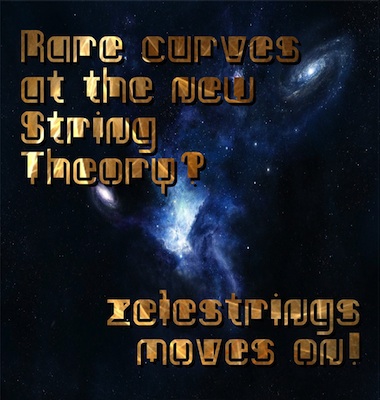
I love this! Especially the lower-case ... the 'i' and 'j' are such fun :) 10/10
@p2pnut: Thank you very much, pal! I have tried to make here a special font, filled with a black vertical bar much of the interior of each glyph, which has forced me to determine and define the outer areas of each one that make it recognizable to the eye and that allow them to be readable in a text (not too long, of course). For me it was a challenge that you sure will help me to improve from now. Thanks again.
Cool new font in your unmistakable style. 10/10
Very distinctive and original font. G, K, @, &, and the eye are especially appealing. 10!
There are a few minor inconsistencies, in my opinion:
1. The upper dot of the semicolon ought to be as high as that of the colon.
2. You have made dots of two different sizes. I understand that the spacing is complicated by your use of the 2 by 2 filters, plus the odd number of bricks in the black vertical bar. But is there a way to utilize dots that are all the same size? Maybe not.
3. The vertical bars of the upside-down exclamation and question marks do not match the bars of their regular counterparts.
4. You have used one style for each lowercase a, but a different kind for the ae combination.
Please take a look at my proposed changes shown below:
Great work as always, elmoyenique!
I like it. Particularly the 'E,F,4,X,Y'. The ones I'm not in favour of are "K,N,M,V,Z,7".
Overall a really great concept.
Goood! A well earned Top Pick. Nice use of the 2x2 filter.
I've changed the "N" and the spanish "Ñ". Do you like?. And some little more changes will come.
this font is f-f-fresh!
@regular one: Thanks a lot for your comment. Was exciting (and funny) for me to add the big black bar on the middle of each glyph. I like the result.
Love it!
it looks like people decided to use letters for towels instead of towel hangers